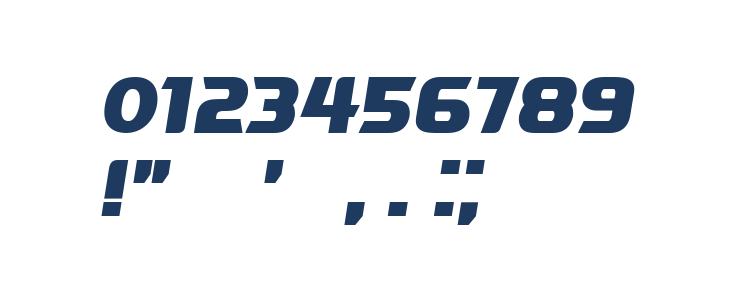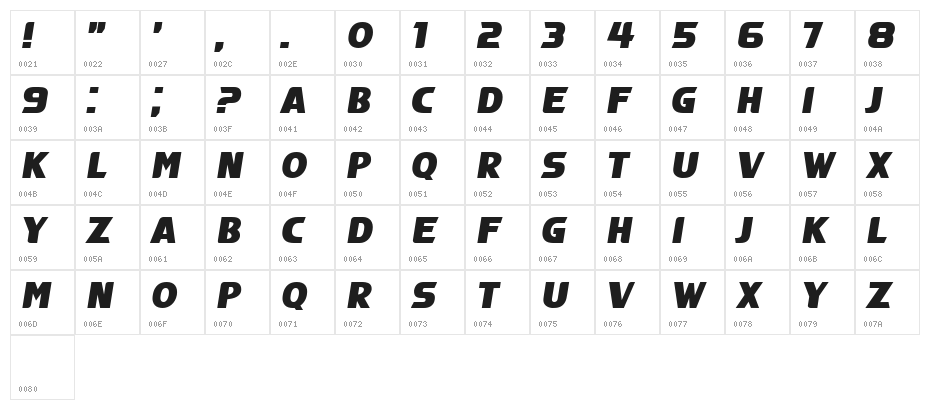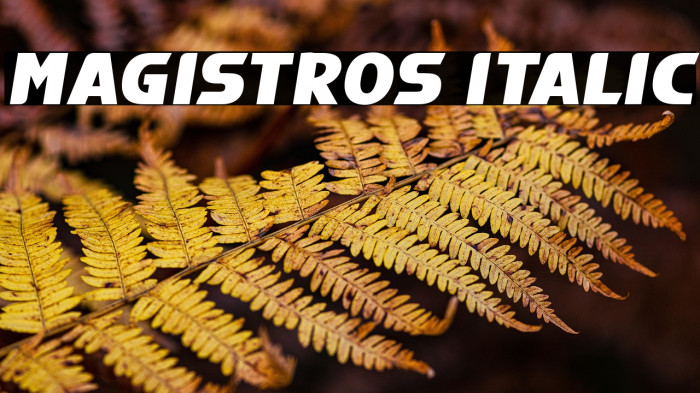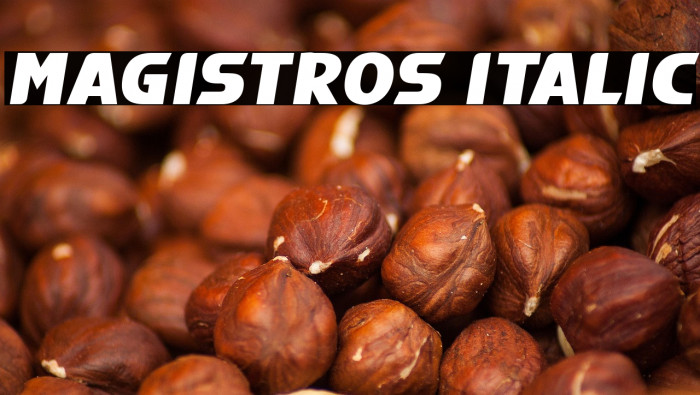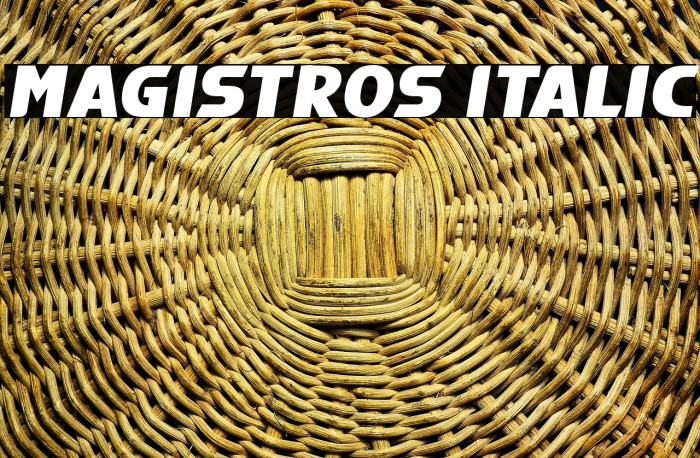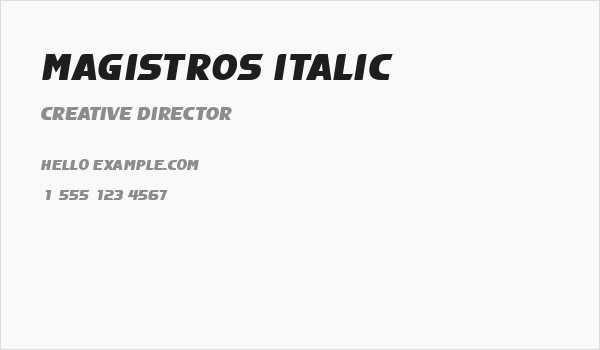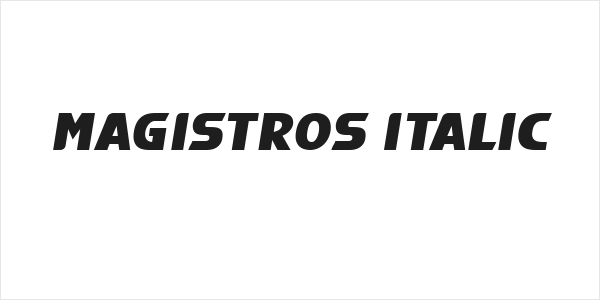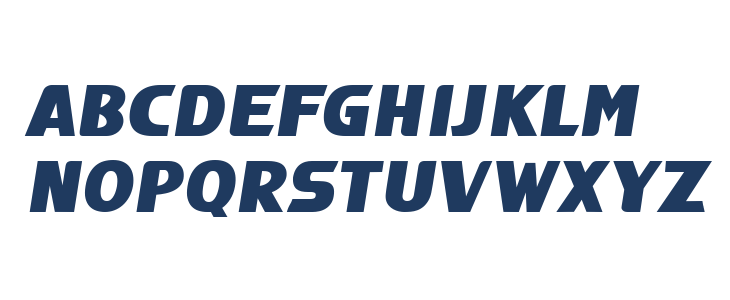
Magistros Italic Font
Magistros Italic Description
This font features a bold and dynamic italic style, characterized by its strong, angular lines and slightly condensed letterforms. The uppercase letters exhibit a robust presence, while the lowercase letters maintain a consistent flow, enhancing readability. The numerals are designed with a uniform thickness, ensuring clarity and balance. Special characters are crafted with precision, adding to the font's versatility. The overall design exudes a modern and energetic feel, making it suitable for various creative applications.